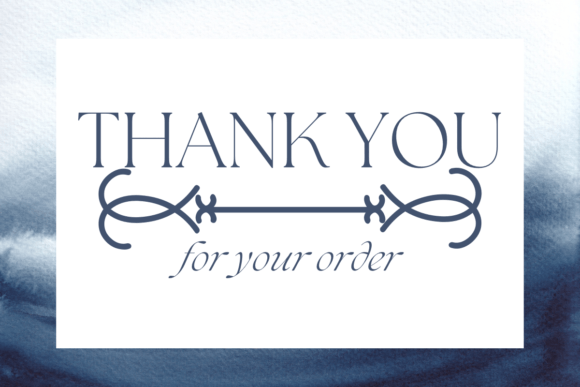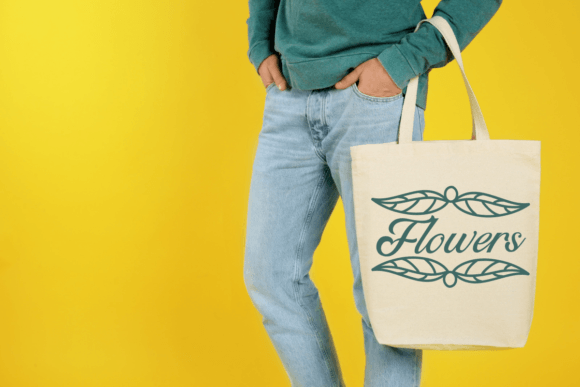
Introduction to Lined Dasign Font Font
Fonts play a crucial role in design, and the Lined Dasign Font font is a typeface that brings both character and versatility to any project. Whether you’re working on a branding project, a website, or a print design, the Lined Dasign Font font offers a unique style that can elevate your work.
| 📌 Font Name | Lined Dasign Font |
| 👤 Author | Chonada |
Lined Dasign is a lovely dingbat font with a cute theme.
This font can enhance your crafty projects such as wedding invitations, DIY, crafts, decorations, logos, and many other creative ideas .
Key Features of Lined Dasign Font Font
Why Choose Lined Dasign Font Font?
The Lined Dasign Font font is more than just a typeface – it’s a design tool that helps you communicate your message with style and clarity. Its unique character set and versatile design make it suitable for a wide range of applications, from elegant invitations to bold headlines.
With its carefully crafted letterforms and balanced proportions, the Lined Dasign Font font ensures readability and visual appeal across all mediums.
What makes Lined Dasign Font font special?
The Lined Dasign Font font stands out with its unique design, exceptional readability, and versatility across various design applications.